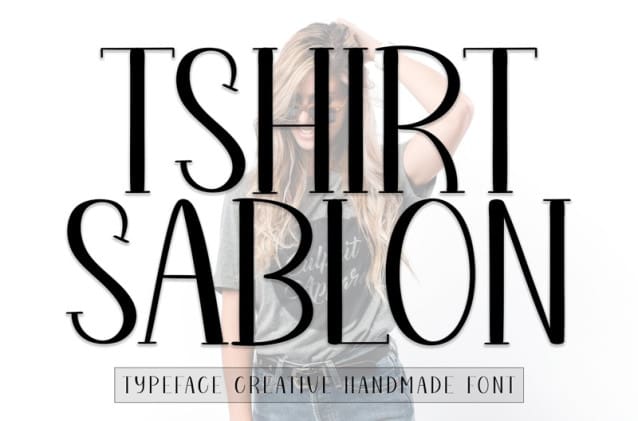
Tshirt Sablon Font
Tshirt Sablon Font, this is a sweet and friendly handwritten display font. Cute and fun, this font is ideal for writing wedding invitations, cards, or any other design that might need a playful touch!